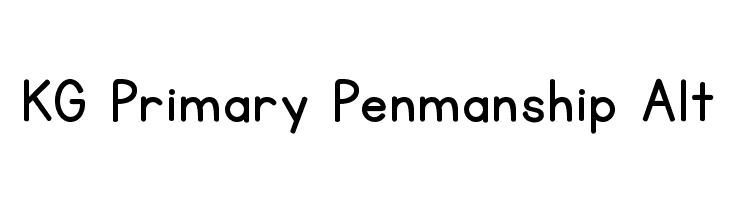
( Fonts by Kimberly Geswein )
( Kimberly Geswein - kimberlygeswein.com )
A clean, rounded font with a handwritten style, perfect for educational use.